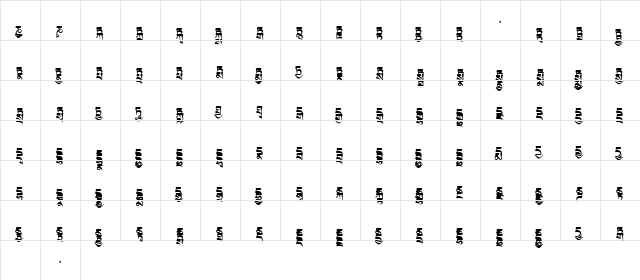
TibetanMachineWeb4 Regular
| Designer | Tony Duff |
Design Context for TibetanMachineWeb4 Typeface
TibetanMachineWeb4 takes a measured approach to typography — its balanced proportions and neutral character make it a reliable workhorse for both digital and print work.